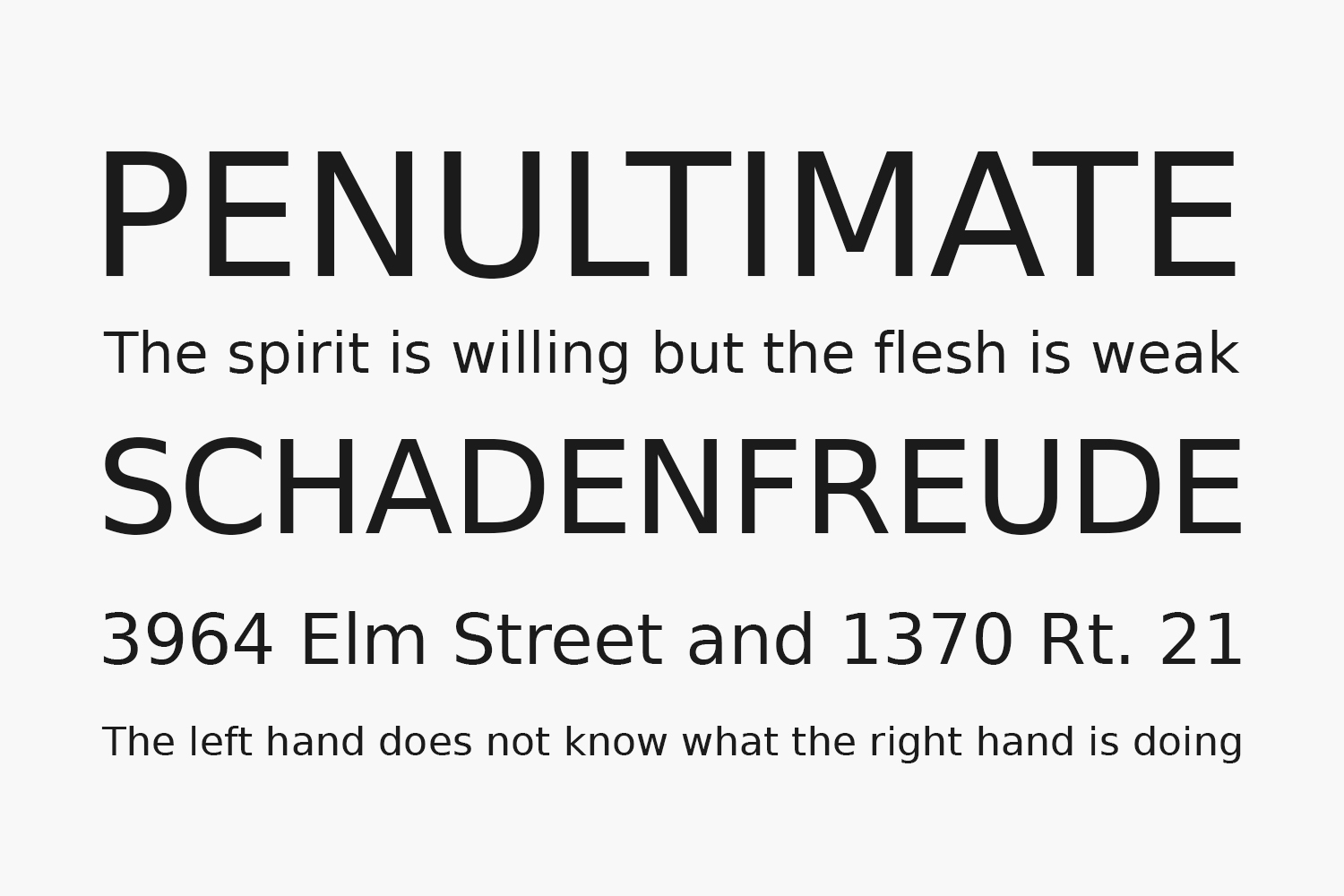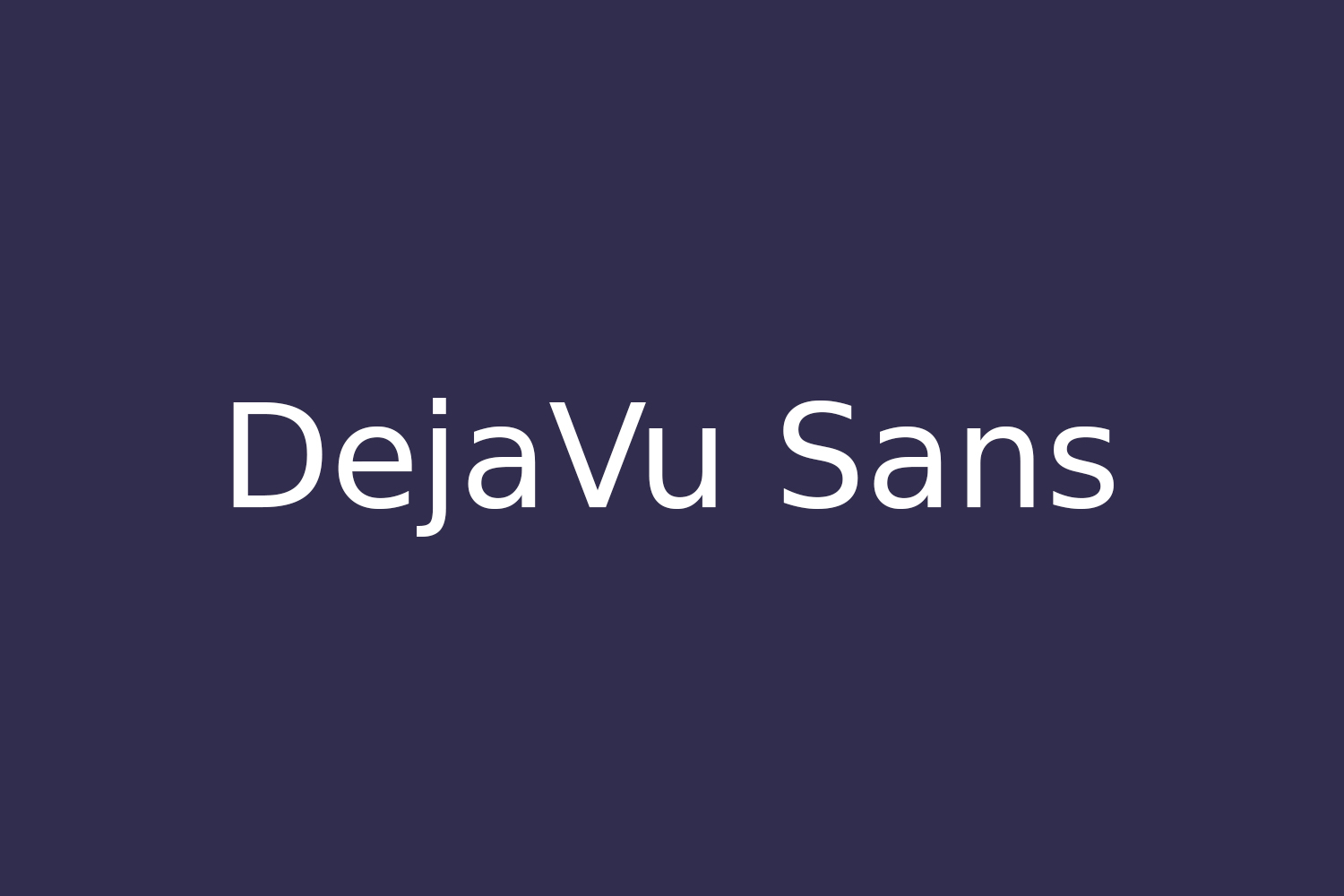
Deja Vu Sans Font
Deja Vu Sans Font - Web deja vu sans font download is available free from freefonts. Web the dejavu fonts are a font family based on the vera fonts. Its purpose is to provide a wider range of characters while. Deja vu sans is a free font for commercial use.
Its purpose is to provide a wider range of characters while. Web the dejavu fonts are a font family based on the vera fonts. Web deja vu sans font download is available free from freefonts. Deja vu sans is a free font for commercial use.
Web the dejavu fonts are a font family based on the vera fonts. Its purpose is to provide a wider range of characters while. Deja vu sans is a free font for commercial use. Web deja vu sans font download is available free from freefonts.
Web deja vu sans font download is available free from freefonts. Its purpose is to provide a wider range of characters while. Web the dejavu fonts are a font family based on the vera fonts.